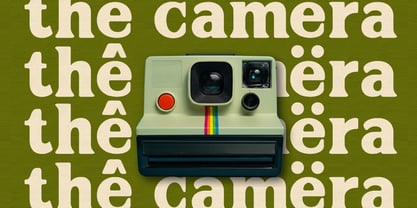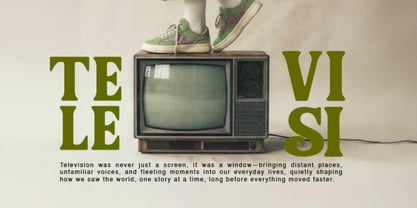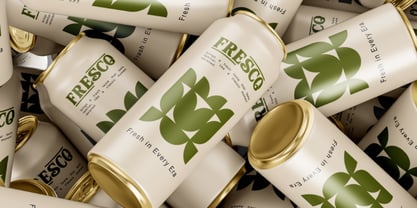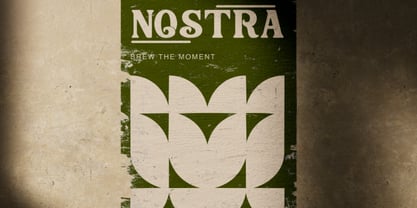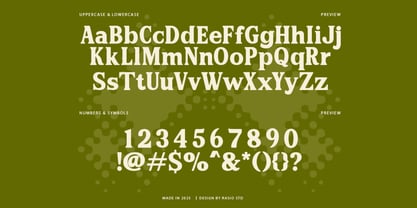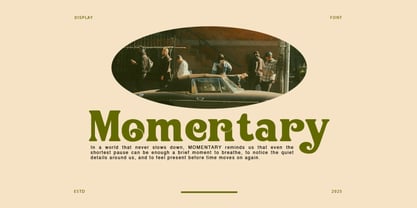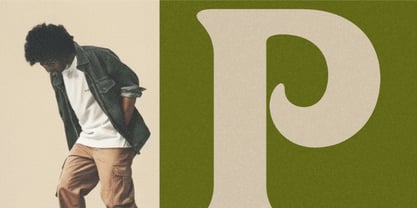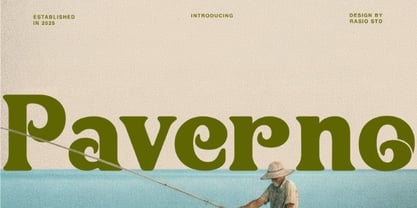
Paverno
by Rasio Studio
The Paverno Font Family was designed by Fajar Indra and published by Rasio Studio. Paverno contains 1 styles. More about this family
Paverno is a bold retro serif font designed to evoke charm, warmth, and a hint of nostalgia. This display typeface features high contrast strokes, playful curves, and dramatic terminals that create a strong visual identity while remaining friendly and approachable. With full uppercase and lowercase support, numbers, punctuation, and multilingual characters, Paverno is ready to serve various creative needs, from branding to editorial use. Paverno is perfect for designers who want to channel a nostalgic yet fresh aesthetic in their visual storytelling. Its bold personality makes it ideal for standout branding, lifestyle packaging, editorial magazine layouts, posters, and social media graphics.
Designers: Fajar Indra
Foundry: Rasio Studio